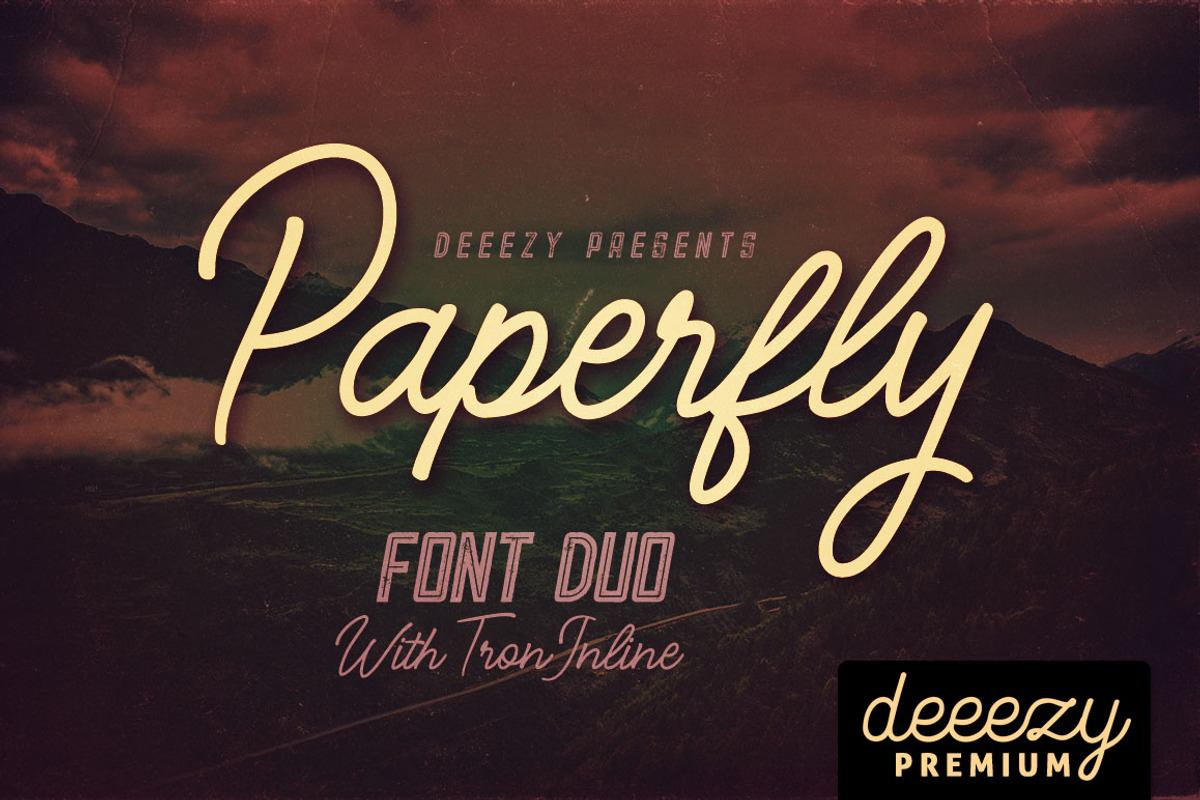
Please note, you must purchase this font for commercial use. However, you can easily download Paperfly Font Duo Free Download for personal use and testing purposes. Paperfly Font Duo is a beautiful combination of two complementary fonts, offering both a playful script and a clean, modern sans-serif. Perfect for a variety of projects, from branding and logos to invitations and social media graphics, this font duo brings versatility and style to your designs. The script font adds a personal touch with its flowing, handwritten feel, while the sans-serif offers a crisp, contemporary balance. Whether you're creating a chic brand identity, a wedding invitation, or a creative graphic, Paperfly Font Duo Free Download ensures your design stands out. Download Paperfly Font Duo Free Download today and explore its potential before opting for a commercial license.